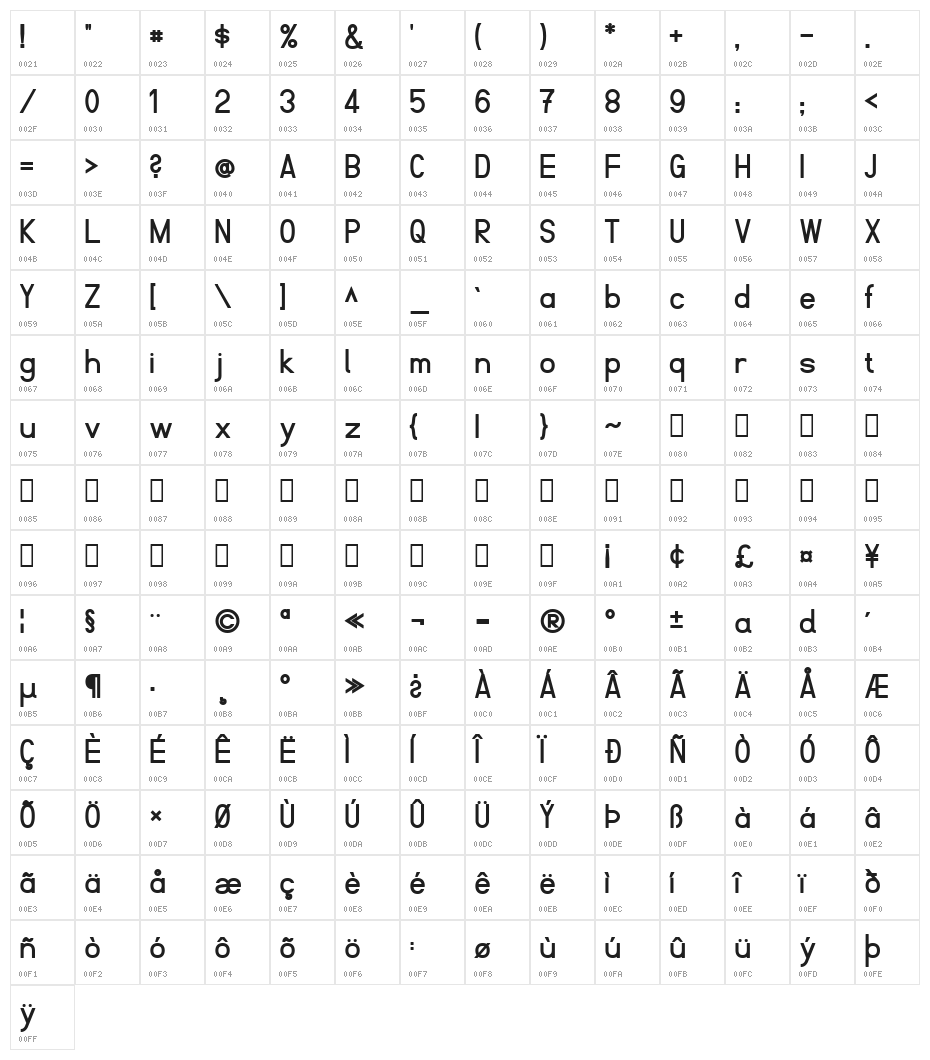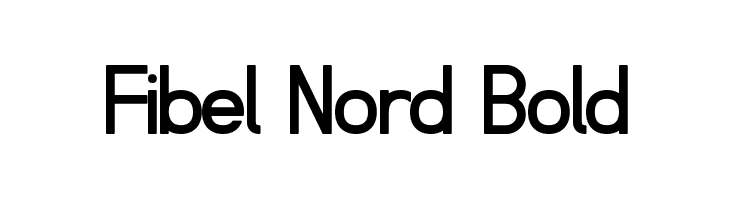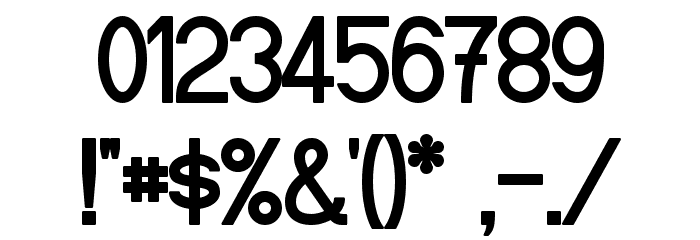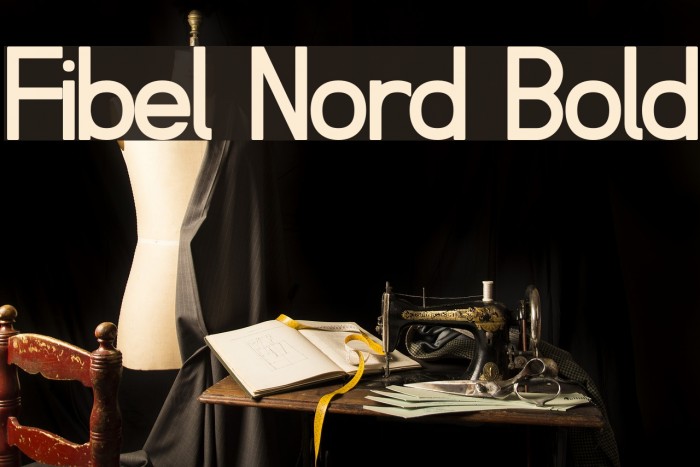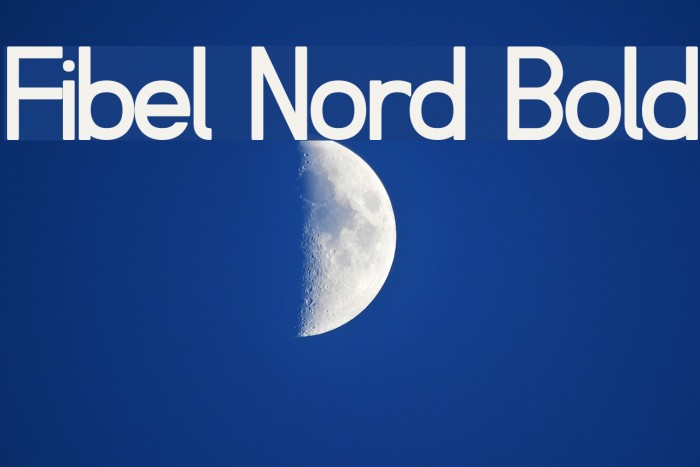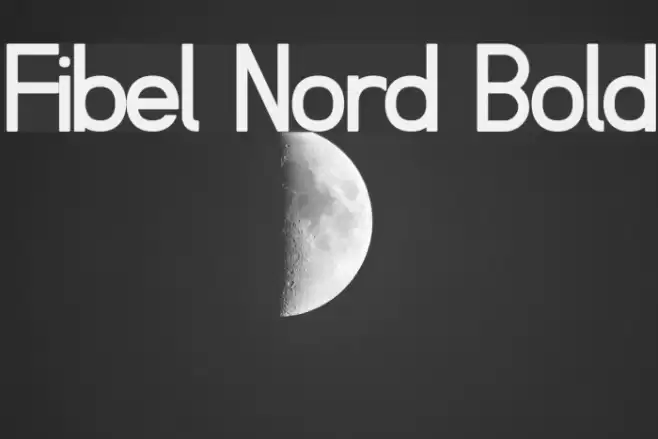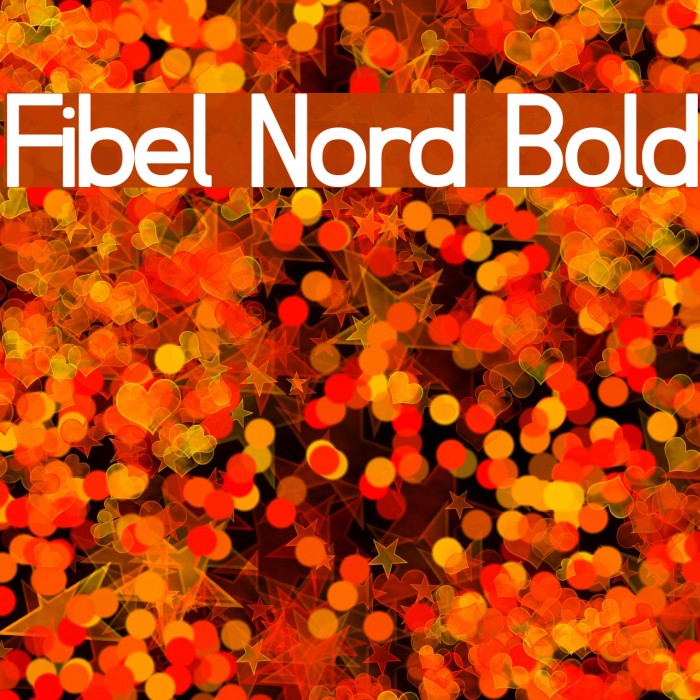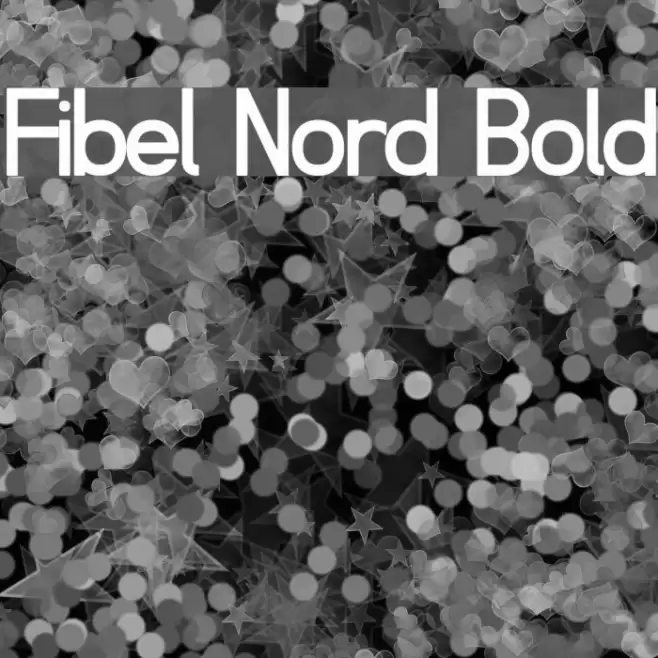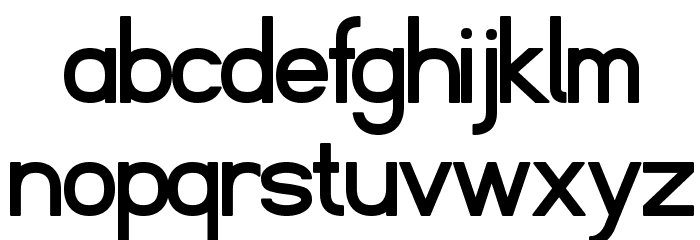
Fibel Nord Bold Font
Fibel Nord Bold Description
This typeface features a bold and clean sans-serif design, characterized by its geometric shapes and uniform stroke widths. The uppercase letters are tall and commanding, while the lowercase letters maintain a consistent height, providing a balanced appearance. The numerals are clear and legible, making them suitable for various applications. Special characters are well-defined, adding versatility to the font. The overall design is modern and straightforward, making it ideal for projects that require a strong visual impact.